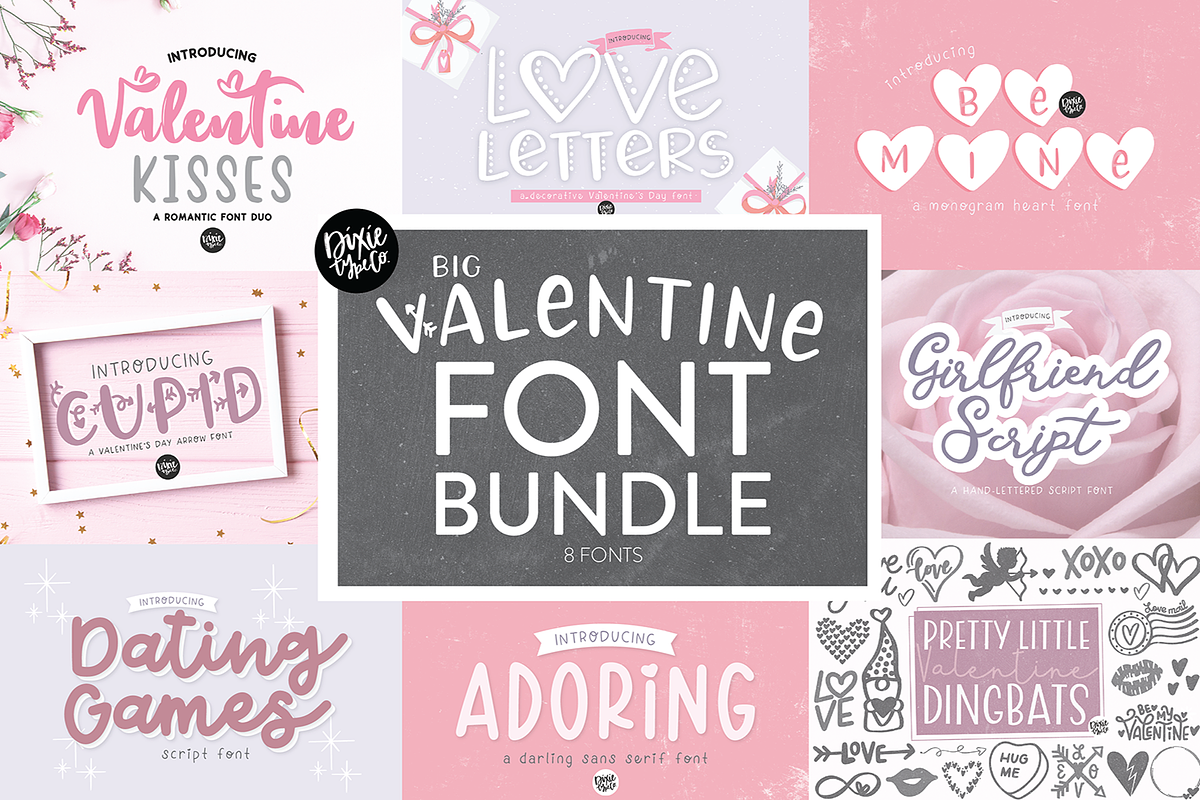
You must purchase these fonts for commercial use. However, you can download VALENTINE'S DAY Font Bundle Free Download for testing purposes. The Valentine’s Day Font Bundle is a beautiful collection of fonts designed to capture the romantic and festive spirit of the holiday. This bundle includes a variety of elegant script fonts, handwritten styles, and playful fonts, making it perfect for creating wedding invitations, love letters, greeting cards, social media graphics, and any project that needs a touch of romance and creativity.
The fonts in the VALENTINE'S DAY Font Bundle offer versatility and charm, giving you plenty of options for designing everything from heartfelt messages to elegant invitations. Whether you’re working on a personal project or a professional branding piece, this bundle brings a whimsical and loving touch to your typography.